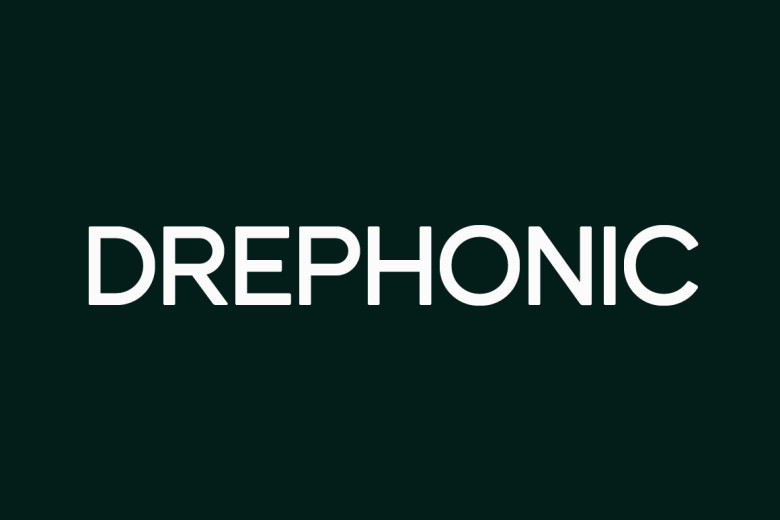
Drephonic Font
A new product, Drephonic Modern Sans Serif Font is here. Serif font that feels modern and elegant, while also remains classy. This typeface is ideal for a wide variety of projects, such as: signature, book cover layouts; logo design including Japanese kana (each individual letter) with two instances apiece for both fat and juicy popovers making beverages look larger than life typography quotes on the net: website headers and clothing in particular can be a major usage headbranding packages design, package branding even more than before! Not only fashion-related editorial design shows male or female ways.
DREPHONIC Modern Sans Serif Font